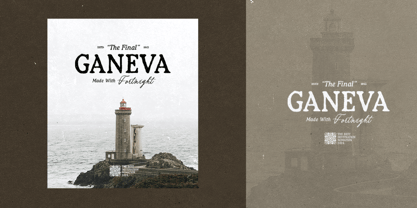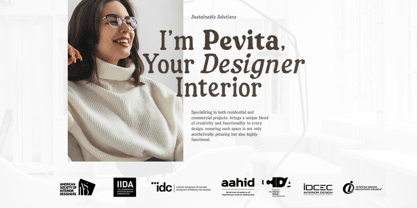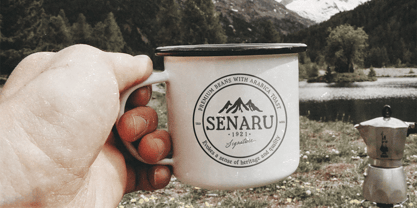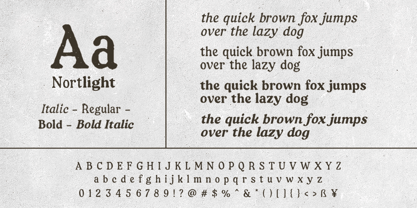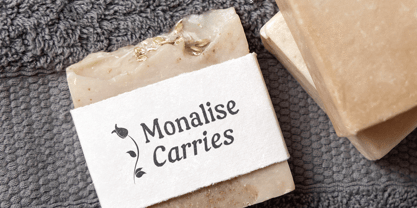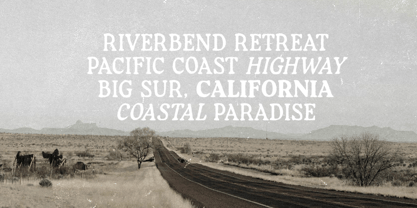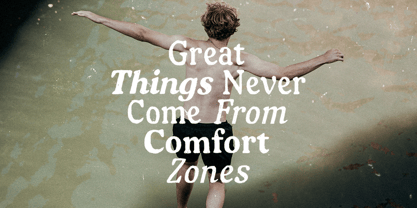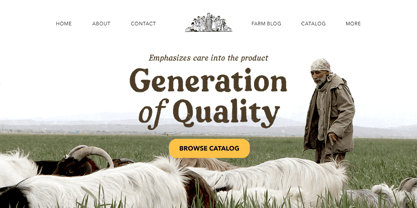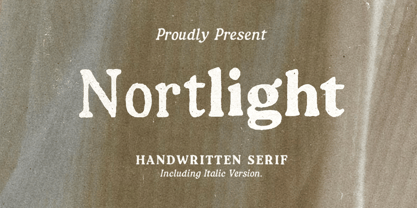
Nortlight
The Nortlight Font Family was designed by Sarid Ezra, Liwa Shidqy and published by Bale Type. Nortlight contains 4 styles and family package options.
Nortlight is a hand-lettered serif font family with handmade and natural rough looks. It's perfect for projects that call for a handcrafted, organic feel. This font comes with Regular, Italic, Bold, Bold Italic, that you can use to make your presentations more appealing. Plus, it supports multi languages!Elegant Fonts